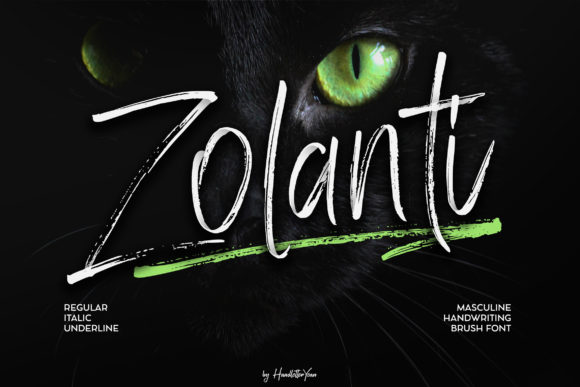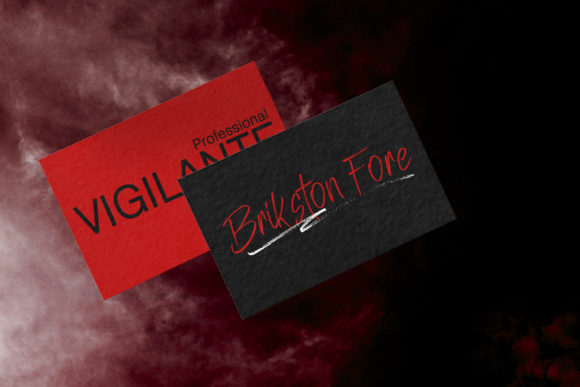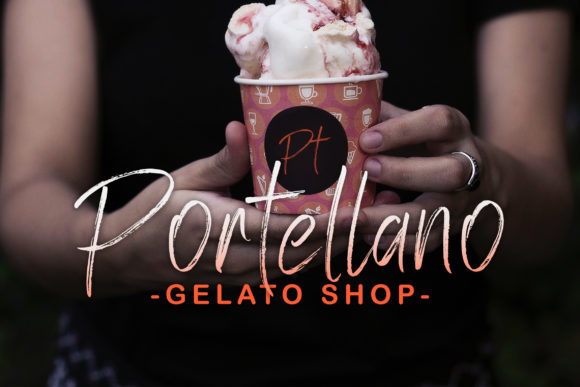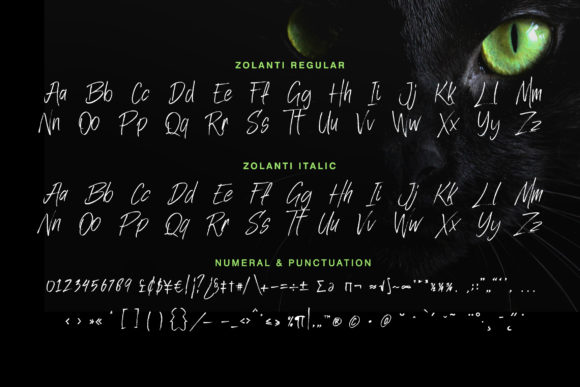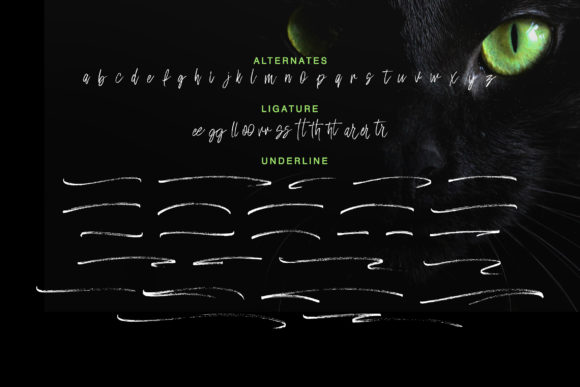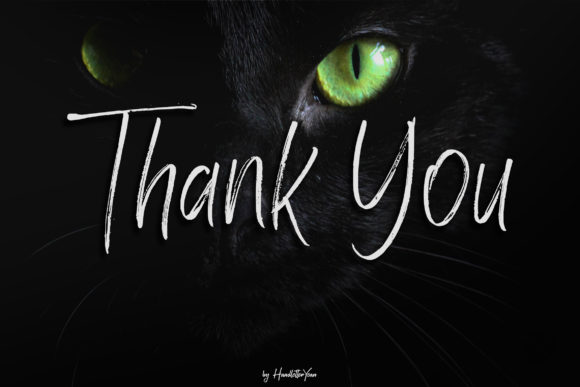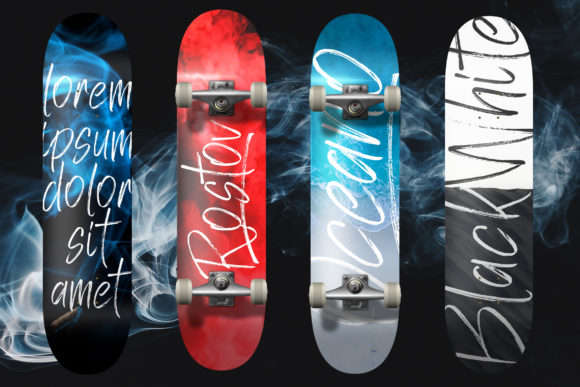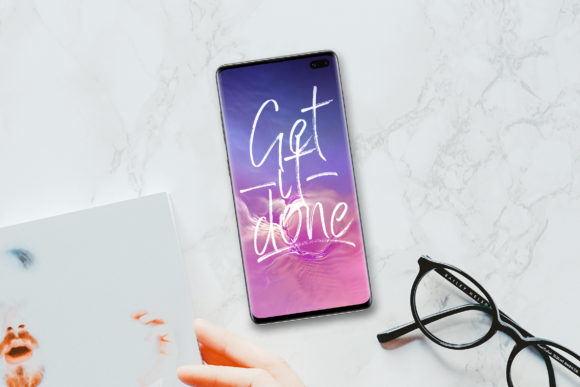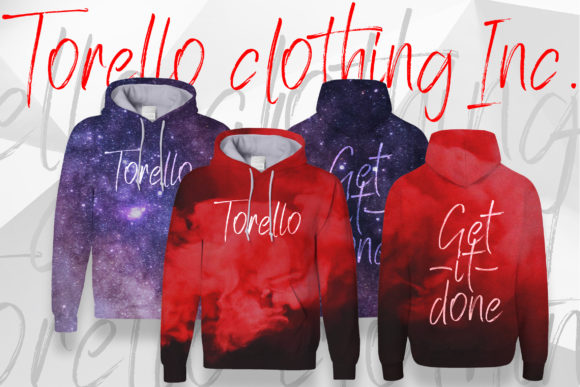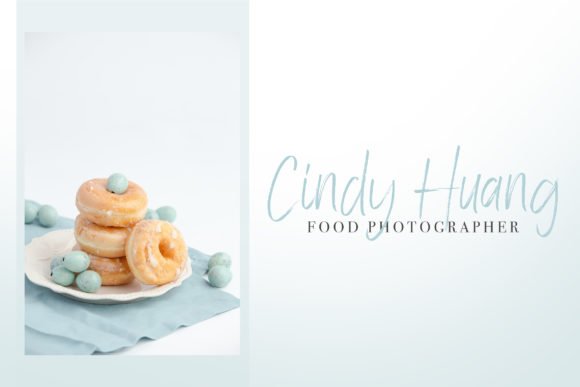
Zolanti Font
About Zolanti Font
Zolanti is a handwritten brush font with a rough and powerful feel. It’s the perfect font to add a cool vibe to any design project.